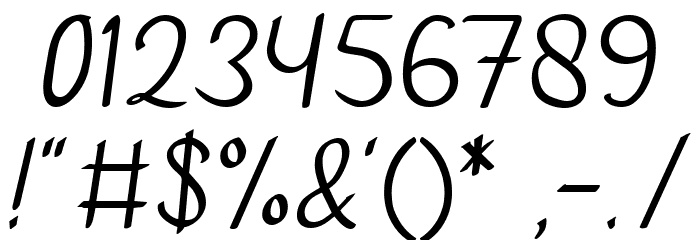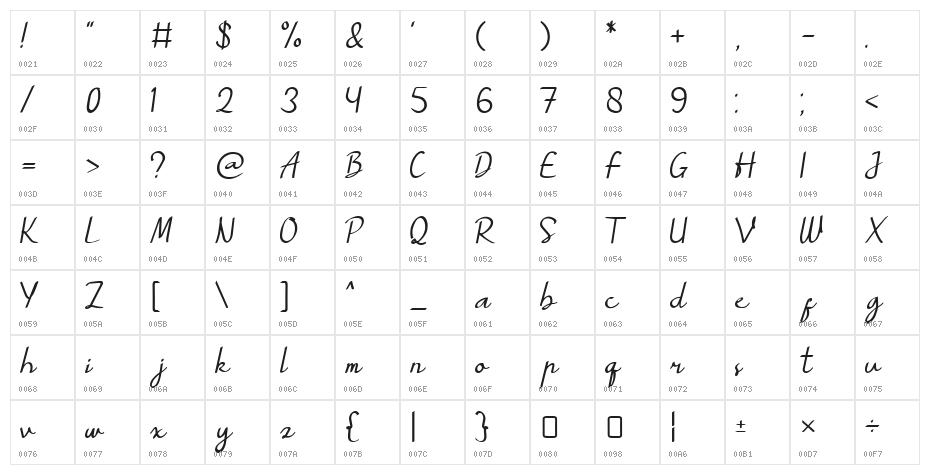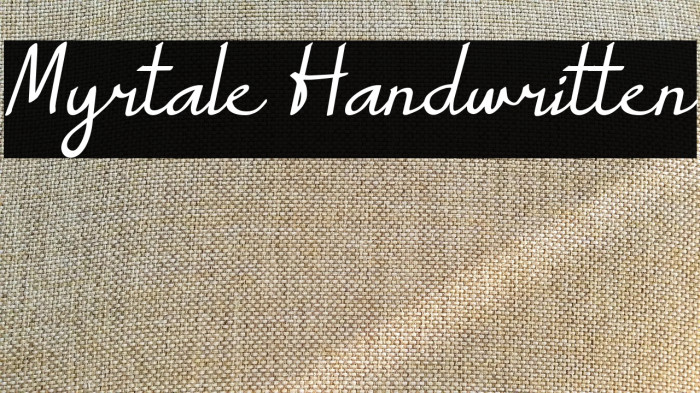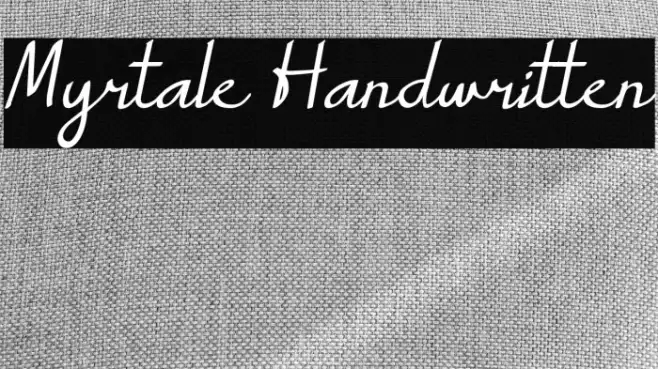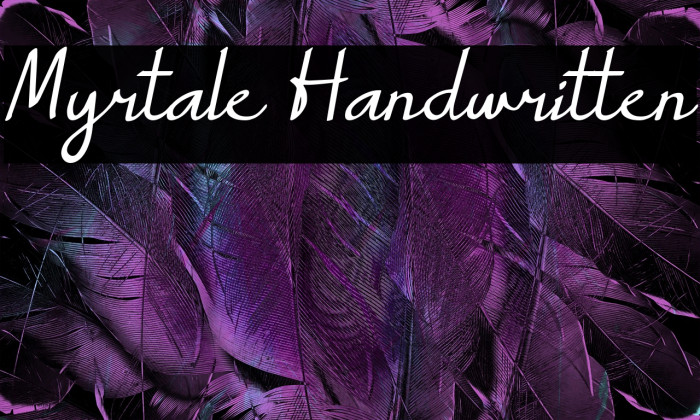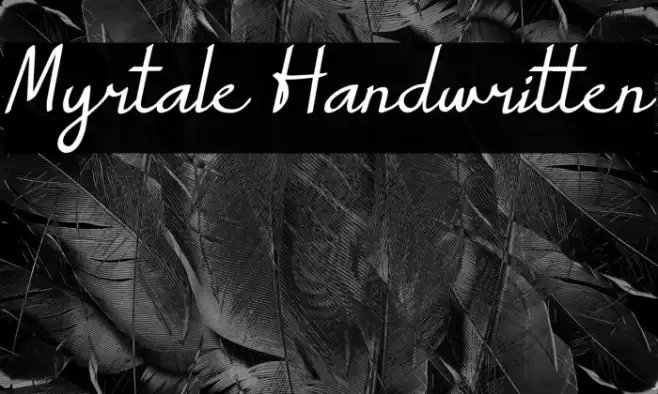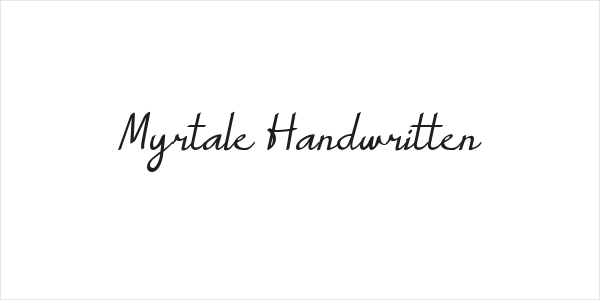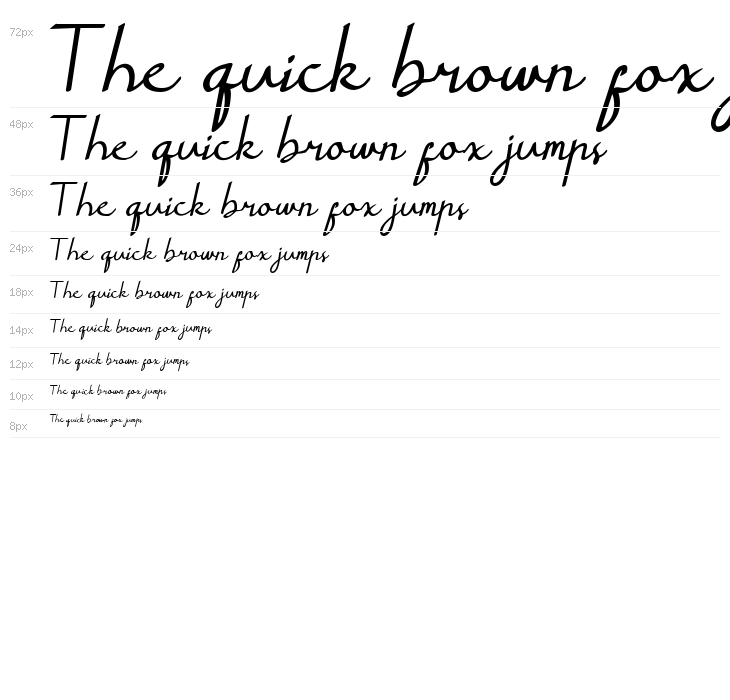
Myrtale Handwritten Font
Myrtale Handwritten Description
This font features a fluid, handwritten style that exudes elegance and personal touch. The uppercase letters are tall and slightly slanted, with smooth curves and a consistent stroke width that adds to its legibility. The lowercase letters maintain the same fluidity, with some characters like 'g' and 'y' having distinctive loops that enhance its handwritten charm. The numerals are clear and easy to read, matching the overall style of the alphabet. Special characters are well-integrated, maintaining the same aesthetic flow. This font is perfect for projects that require a personal, yet sophisticated touch.
Overall StyleElegant, Personal
Use CaseLogos, Invitations, Personal Branding
Proposed ProjectsIdeal for wedding invitations, personal branding, greeting cards, and elegant stationery.